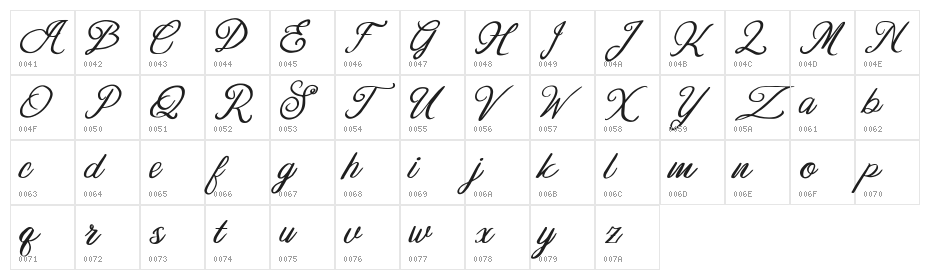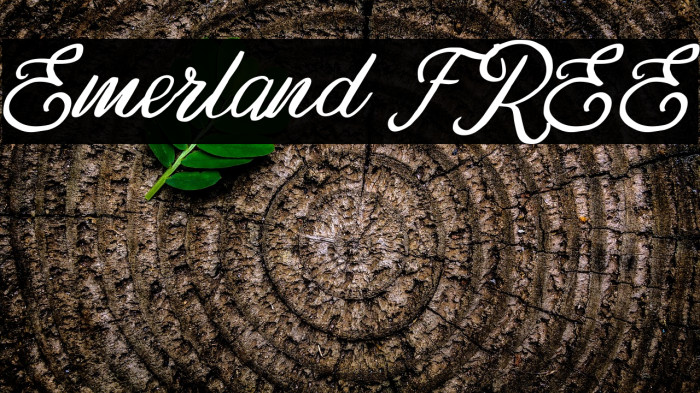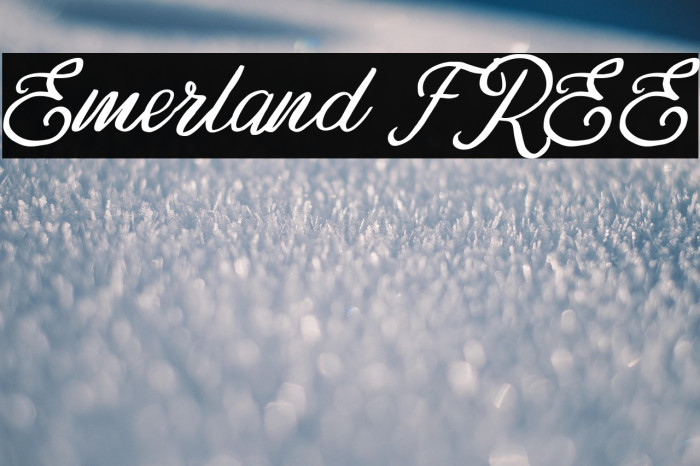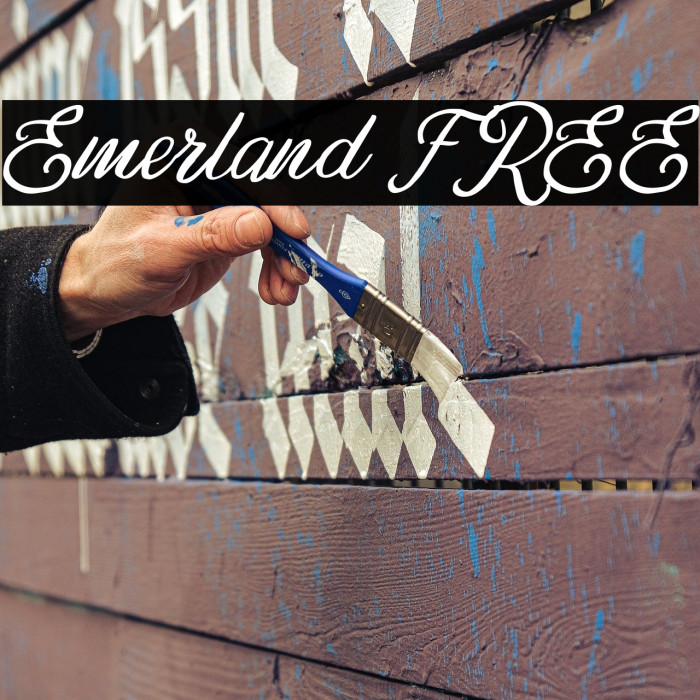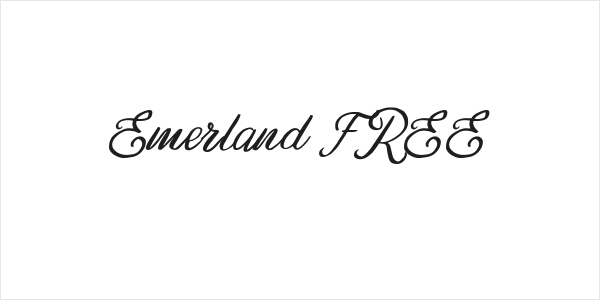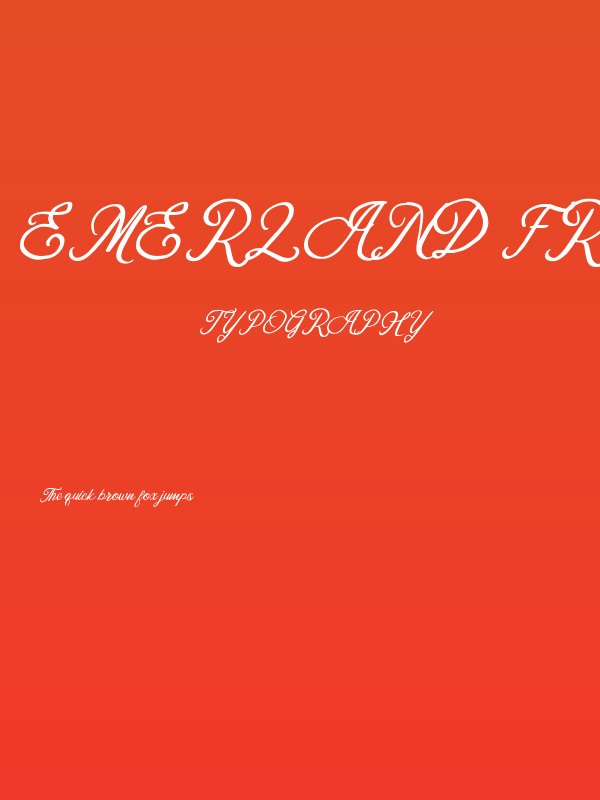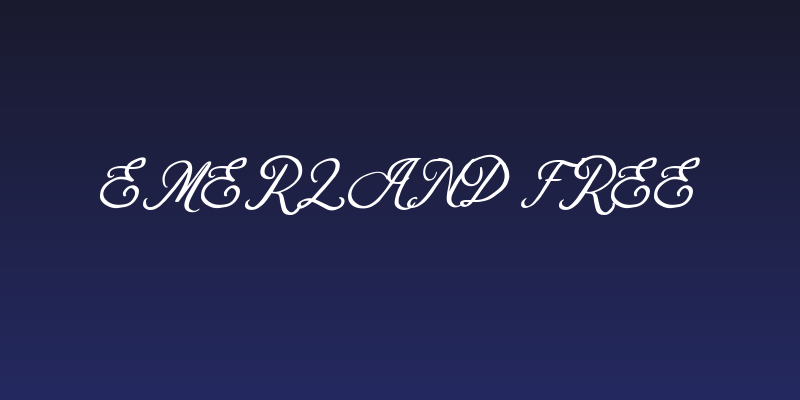
Emerland FREE Font
Emerland FREE Description
This elegant script font features flowing, cursive letters with a classic and sophisticated appearance. The uppercase letters are ornate, with intricate loops and flourishes that add a touch of elegance. The lowercase letters maintain a smooth, connected style, enhancing readability while preserving the font's decorative nature. The numbers and special characters are designed to complement the overall aesthetic, making it suitable for formal invitations, branding, and decorative projects. The font's consistent stroke width and graceful curves create a harmonious balance, making it visually appealing for various design applications.
| Proposed Projects | Ideal for wedding invitations, elegant branding, greeting cards, and decorative signage. |